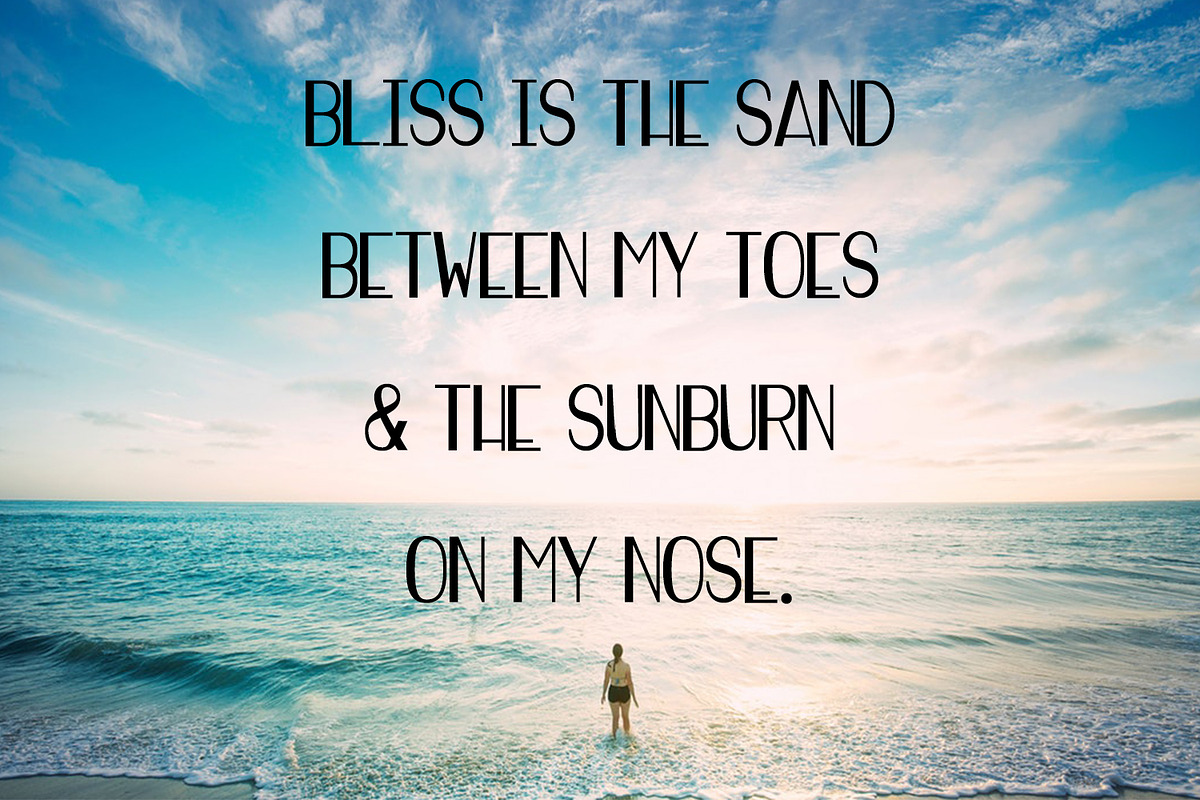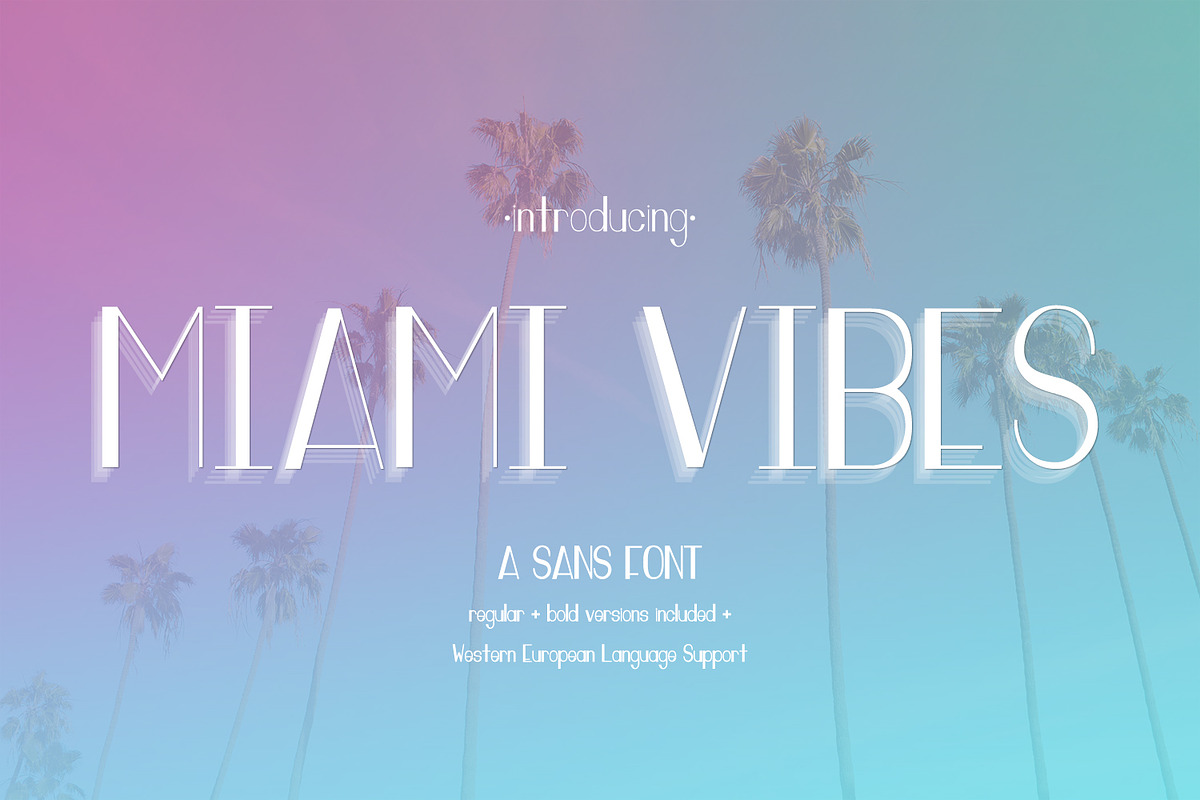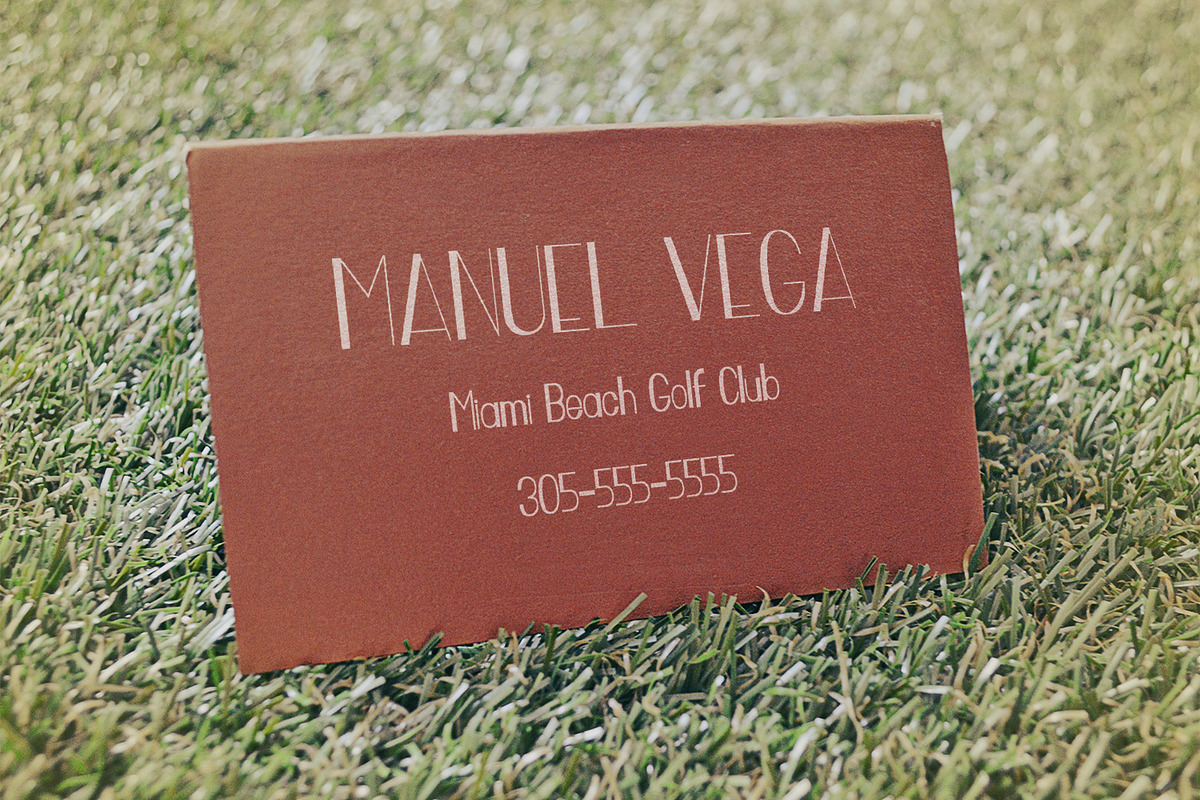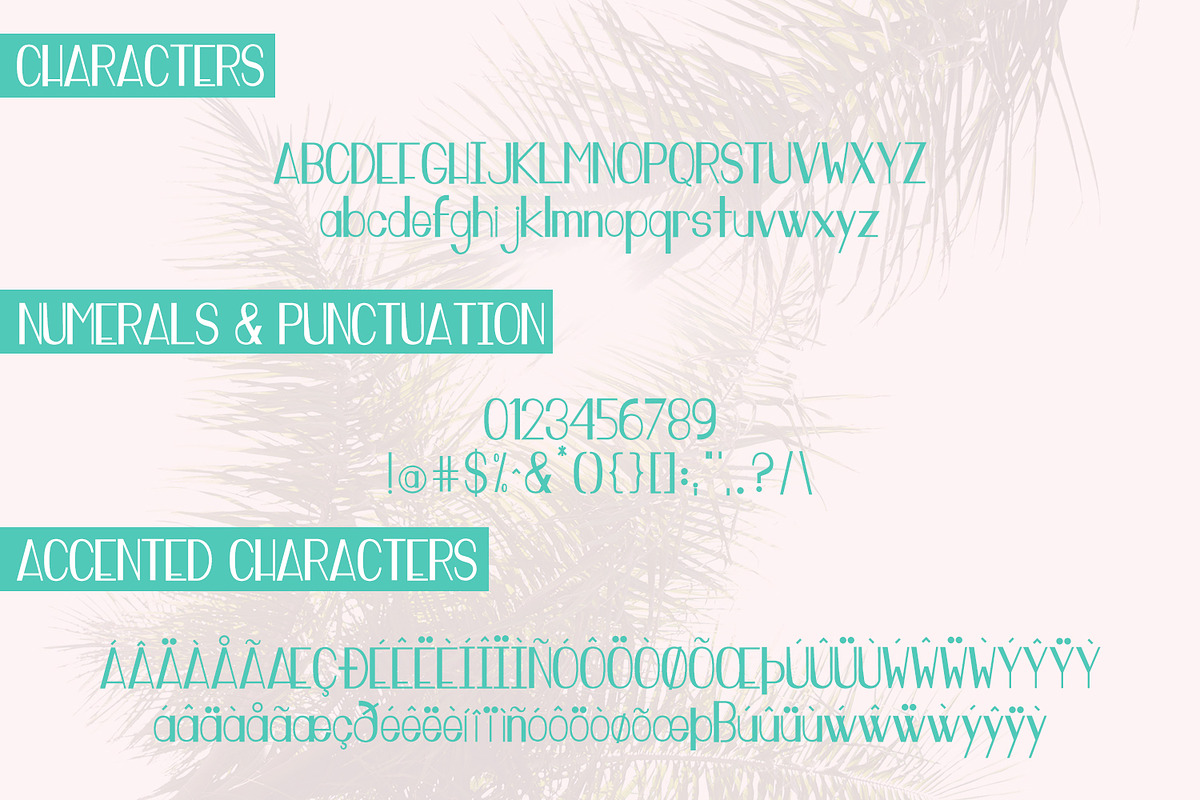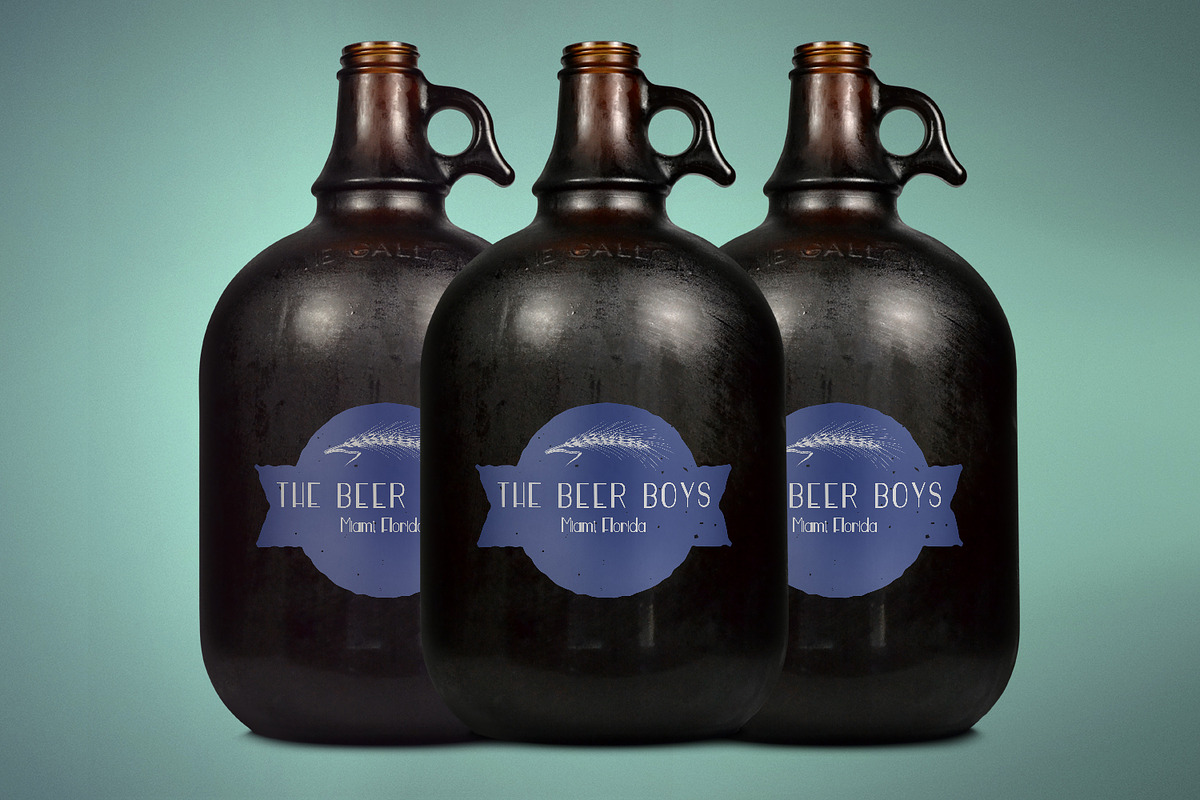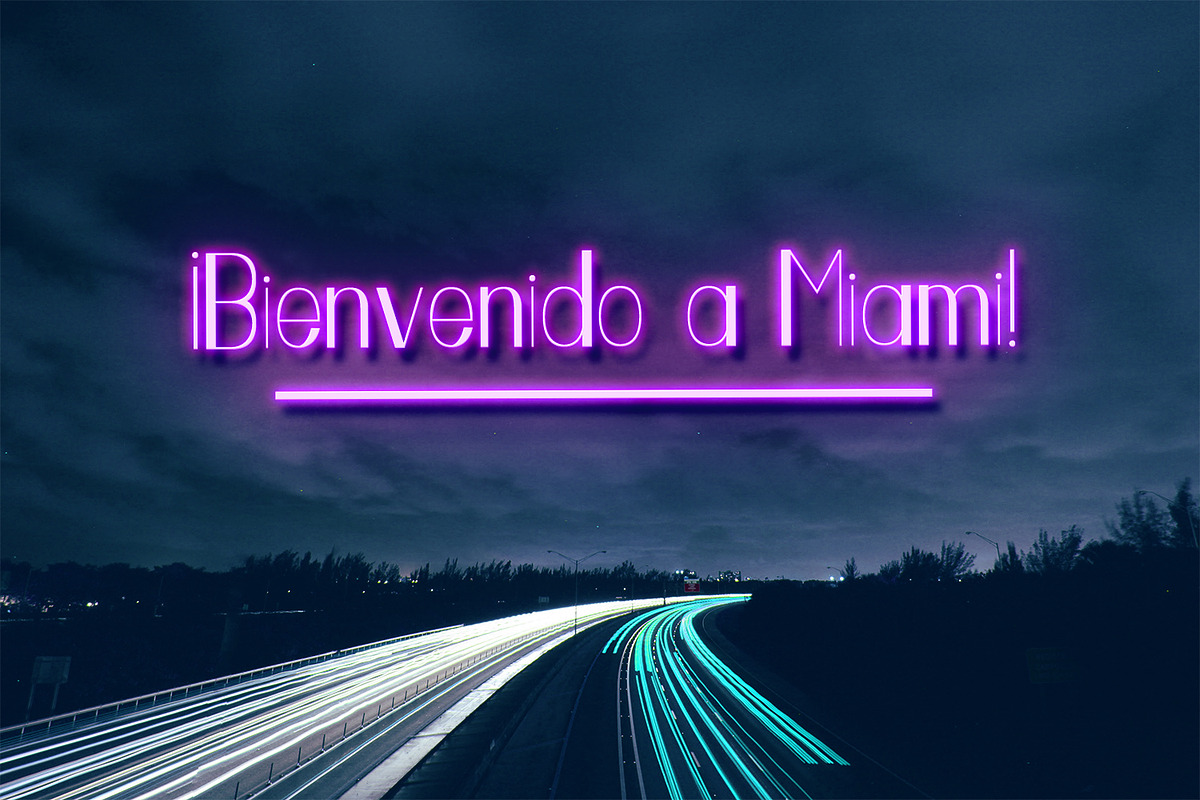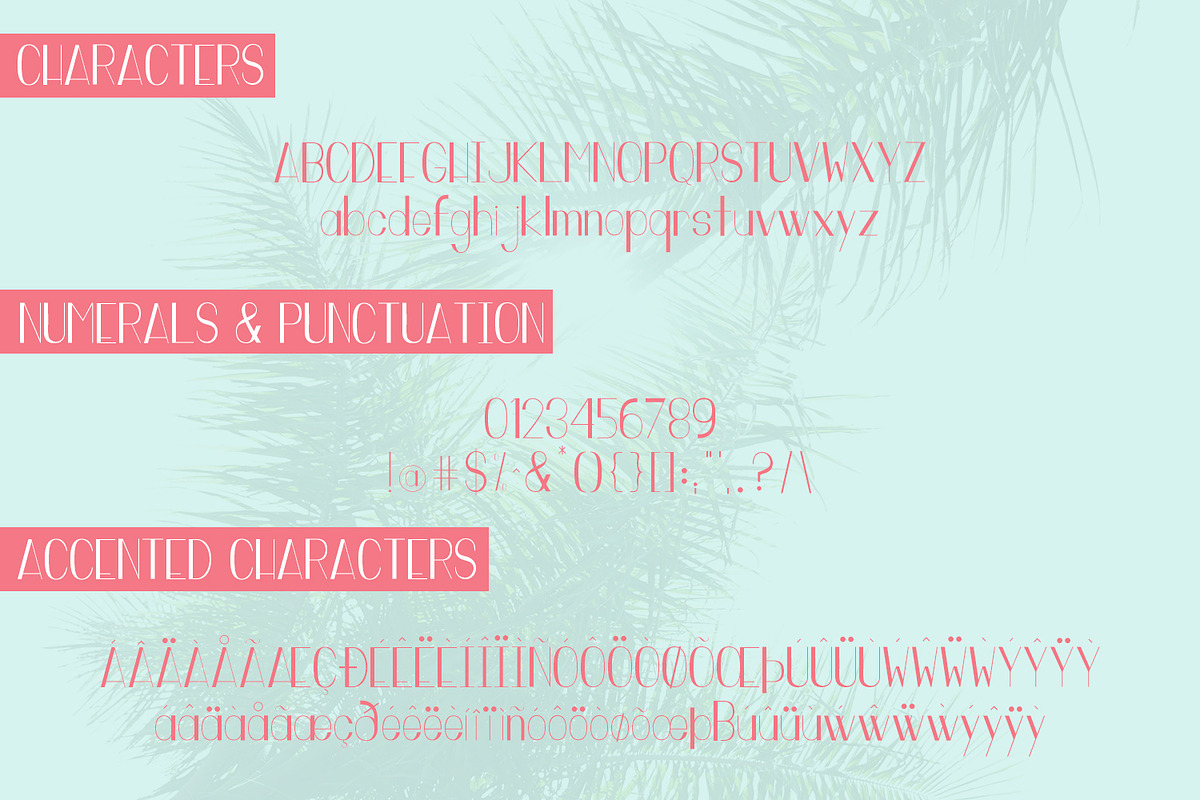
Miami Vibes Sans
Miami Vibes is a clean, art deco style sans font, inspired by the melting pot city. Miami is the perfect mixture of old & new, cultures & traditions. It’s bright, crisp, and edgy with the perfect amount of attitude — that special quality that really catches your attention.
Miami Vibes includes a regular & a bold version, and also includes Western European language support.